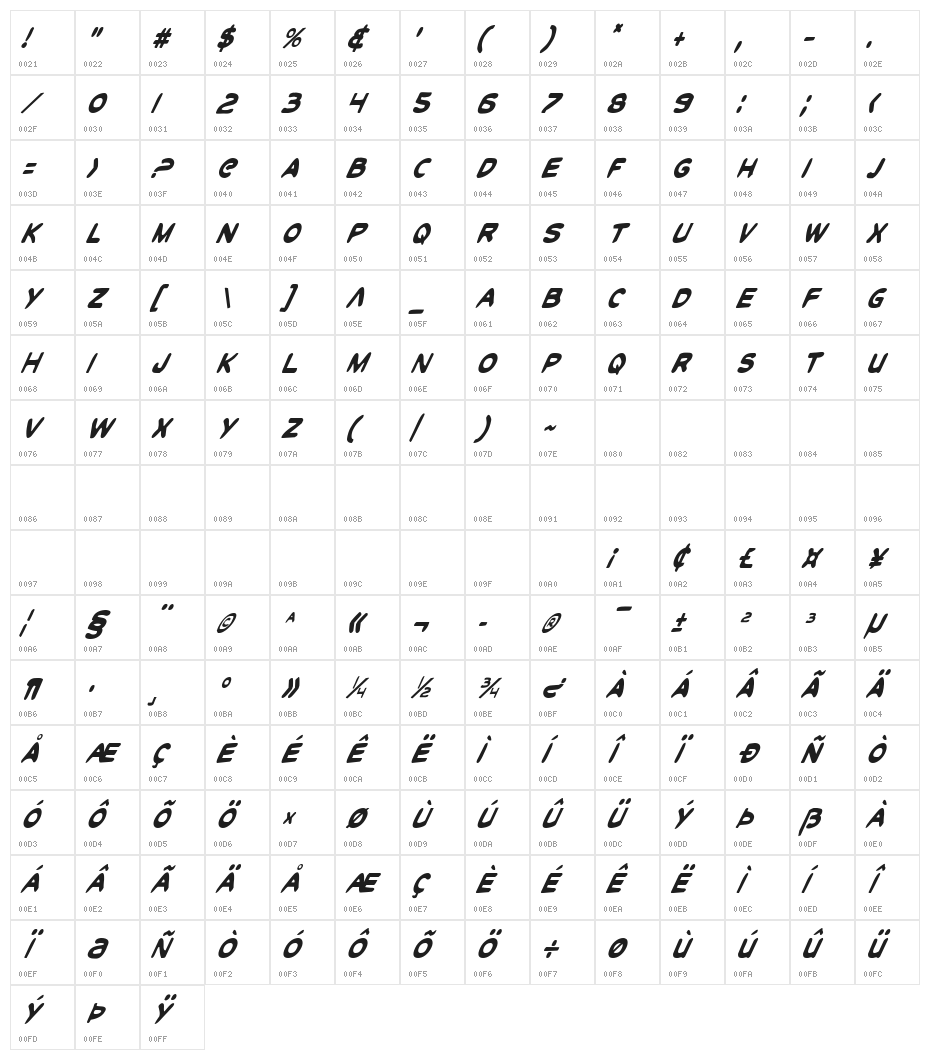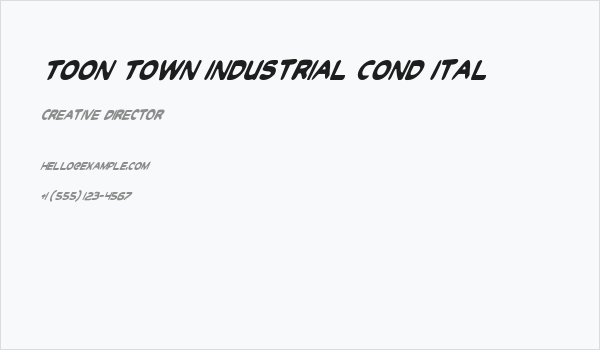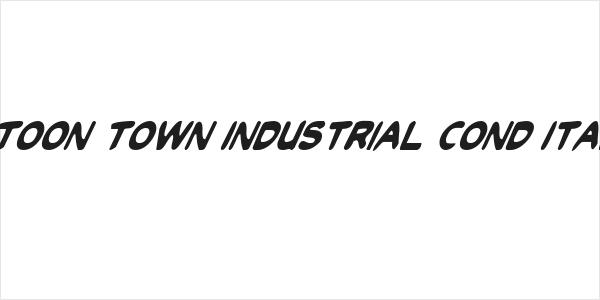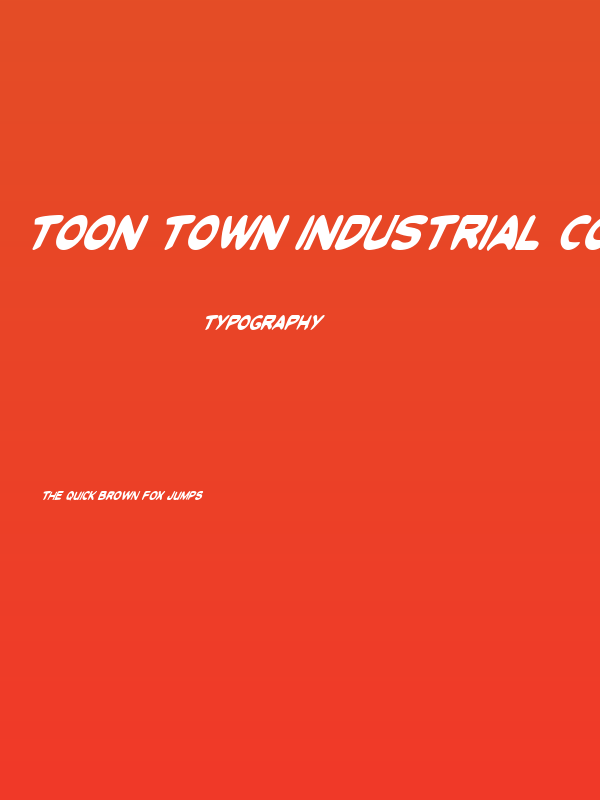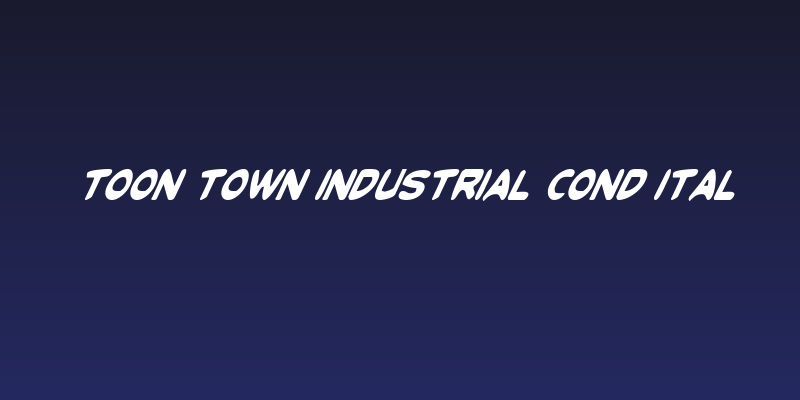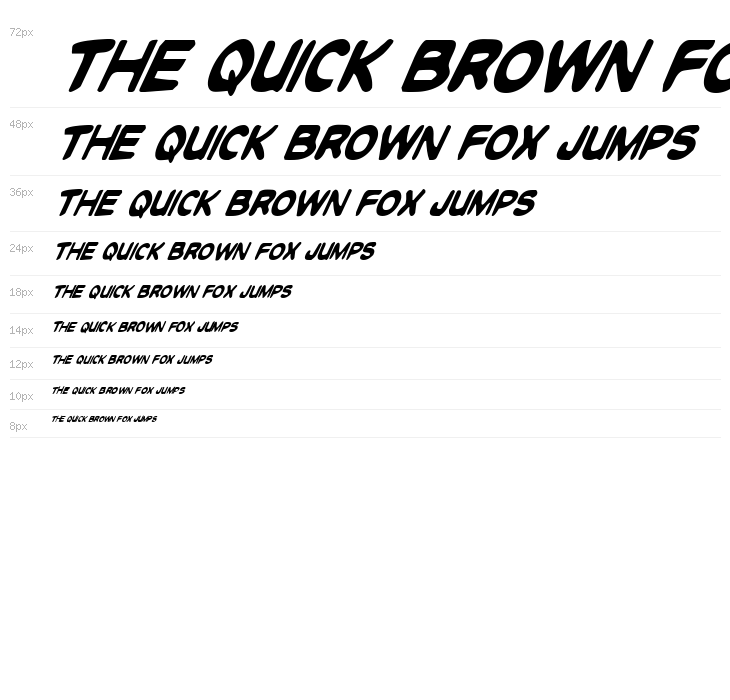
Toon Town Industrial Cond Ital Font
Toon Town Industrial Cond Ital Description
This font features a playful and dynamic style with a bold and italicized appearance. The characters are condensed, giving a compact look that enhances its energetic feel. The strokes are thick, providing a high contrast that makes each letter stand out distinctly. The overall design is reminiscent of cartoon or comic styles, making it ideal for projects that require a fun and lively touch. The uppercase and lowercase letters maintain a consistent style, with smooth curves and sharp angles that add to its industrial flair. The numbers and special characters are equally bold, ensuring uniformity across all text elements.
| Overall Style | Playful, Cartoonish, Industrial |
| Proposed Projects | Ideal for comic books, children's books, playful branding, and eye-catching headlines. |